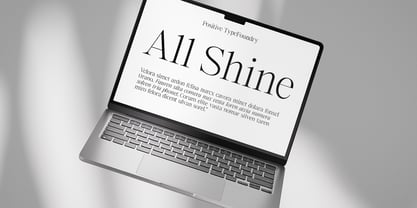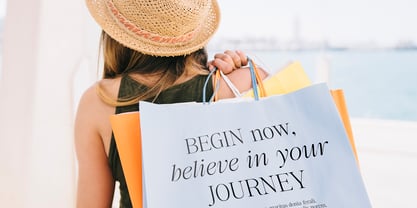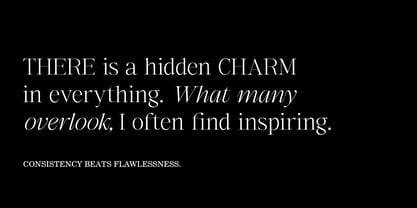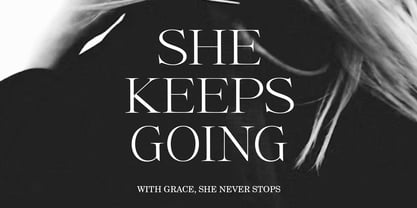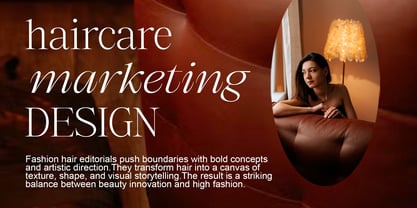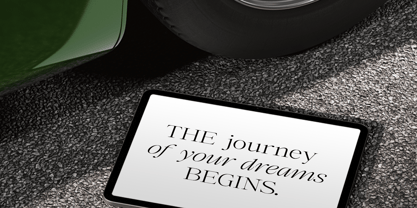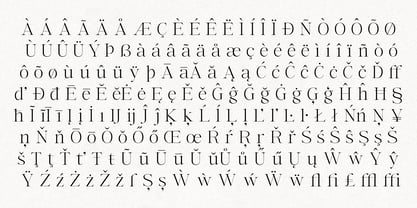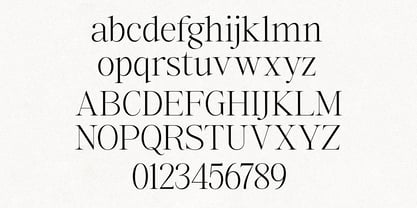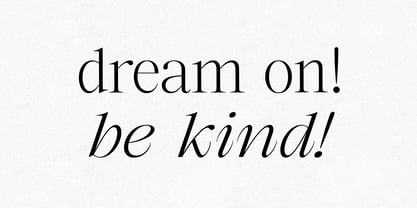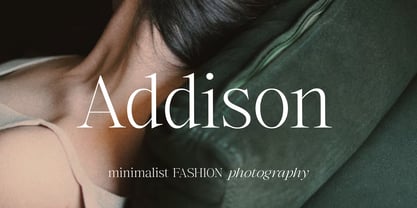
The Glow Makers
by Positive Type
The The Glow Makers Font Family was designed by Nur Hayati and published by Positive Type. The Glow Makers contains 15 styles and family package options. More about this family
The Glow Maker’s is a modern display serif typeface that blends timeless elegance with a contemporary touch. Its refined contrast and graceful curves make it the perfect choice for designs that require sophistication, style, and a luxurious feel. This typeface is highly versatile and works beautifully for branding, fashion, magazines, logos, packaging, and any creative project that seeks a striking and classy presence. What’s Included: 15 font styles for maximum flexibility: Regular, Narrow, Oblique, Condensed, Oblique Narrow, Condensed Oblique, Expanded, Expanded Narrow, Expanded Oblique, Expanded Oblique Narrow, Italic, Italic Narrow, Condensed Italic, Expanded Italic Narrow Uppercase & lowercase letters Multilingual support Elegant stylistic variations Perfect for both headlines and artistic typography Perfect For: Branding & Logo design Editorial & Magazines Fashion-related projects Posters & Book covers Website & Social Media aesthetics